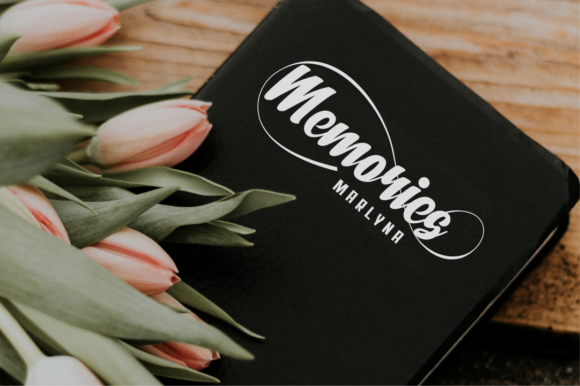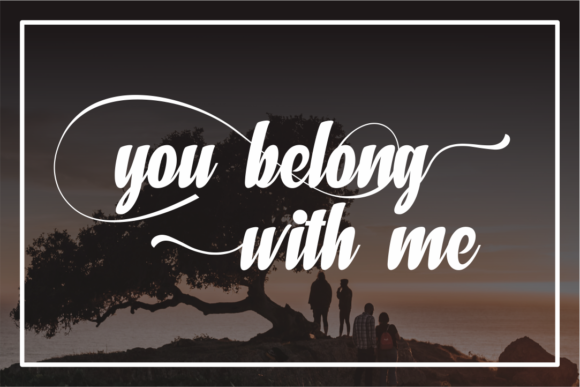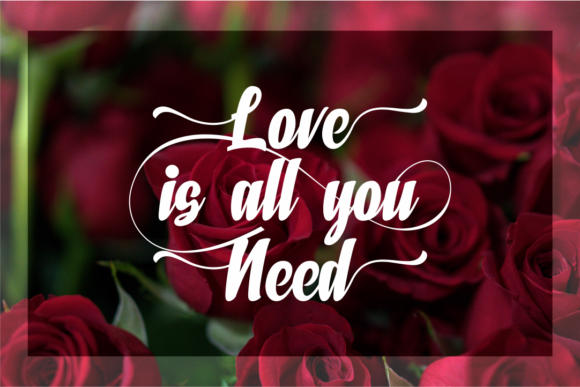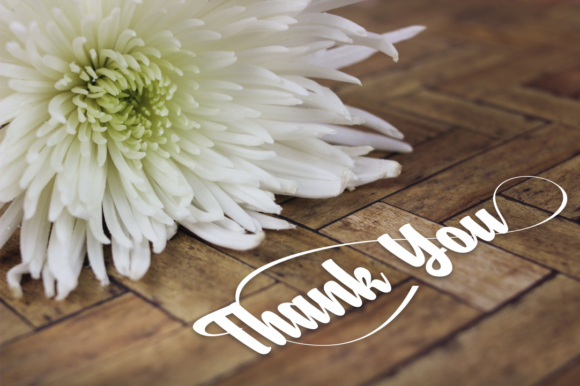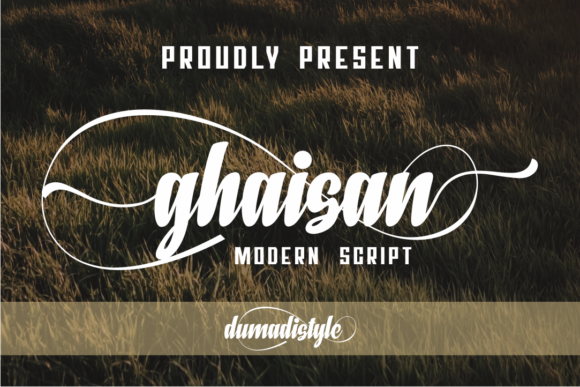
Ghaisan Font: Elevate Your Designs with Elegance and Romance
Are you looking for a font that can add a touch of sophistication and whimsy to your designs? Look no further than Ghaisan Font, a stunning modern script font that is sure to captivate your audience. With its elegant and romantic flair, Ghaisan Font is the perfect choice for your next project, whether you’re a designer, crafter, or simply someone who appreciates beautiful typography.
The Beauty of Ghaisan Font
Ghaisan Font is a masterpiece of modern script typography. Its intricate and flowing lines evoke a sense of luxury and refinement, making it ideal for designs that require a high level of sophistication. The font’s unique and distinctive style is sure to set your designs apart from the crowd, whether you’re working on a logo, branding materials, or social media graphics.
Key Features of Ghaisan Font
- Elegant and Romantic: Ghaisan Font is designed to add an elegant and romantic touch to your designs. Its flowing lines and intricate details make it perfect for designs that require a high level of sophistication.
- Modern Script Style: Ghaisan Font is a modern script font that is inspired by traditional calligraphy. Its unique and distinctive style is sure to make your designs stand out.
- Highly Versatile: Ghaisan Font is highly versatile and can be used for a wide range of design projects, from logos and branding materials to social media graphics and more.
- Easy to Read: Despite its intricate and flowing lines, Ghaisan Font is easy to read and understand, making it perfect for designs that require a high level of legibility.
Why Choose Ghaisan Font?
There are many reasons why Ghaisan Font is an excellent choice for designers and crafters. Here are just a few:
- Unique and Distinctive: Ghaisan Font is a unique and distinctive font that is sure to set your designs apart from the crowd.
- High-Quality Design: Ghaisan Font is designed to the highest standards of quality, ensuring that your designs look professional and polished.
- Easy to Use: Ghaisan Font is easy to use and can be easily integrated into your design workflow.
How to Use Ghaisan Font
Using Ghaisan Font is easy. Here are a few tips to get you started:
- Pair it with Other Fonts: Ghaisan Font pairs well with other fonts, making it easy to create visually appealing designs.
- Use it for Headings: Ghaisan Font is perfect for headings and titles, where its elegant and romantic style can really shine.
- Experiment with Colors: Ghaisan Font looks great in a variety of colors, so don’t be afraid to experiment and find the perfect color scheme for your design.
- What is Ghaisan Font? Ghaisan Font is a modern script font designed to add an elegant and romantic touch to your designs.
- Is Ghaisan Font easy to read? Yes, Ghaisan Font is easy to read and understand, making it perfect for designs that require a high level of legibility.